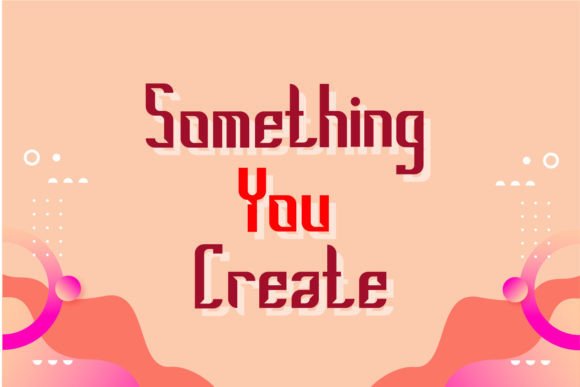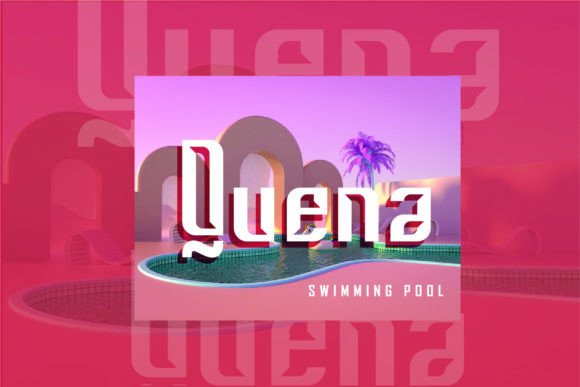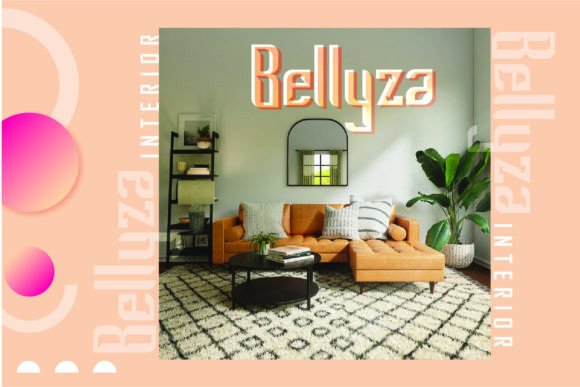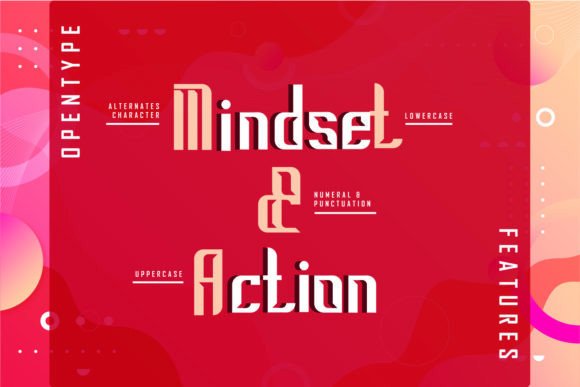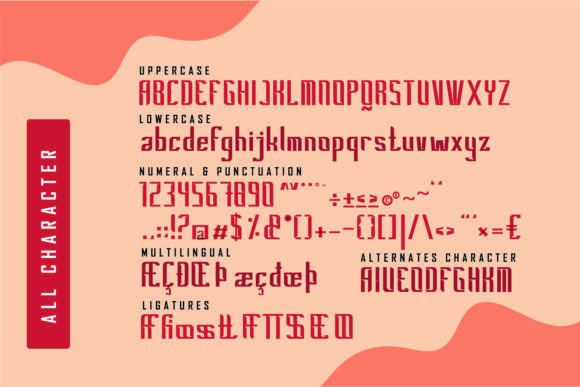
Discover the Elegance of Esmeralda Font: Elevate Your Designs with this Stunning Display Font
Are you a designer or crafter looking for a unique and stylish font to take your creations to the next level? Look no further than Esmeralda Font, an exquisite display font that is sure to impress. With its distinctive and elegant personality, Esmeralda is the perfect choice for anyone seeking to add a touch of sophistication to their designs.
What Makes Esmeralda Font So Special?
Esmeralda Font is a one-of-a-kind display font that boasts a stylish and unique personality. Its original look is sure to appeal to a wide range of crafty ideas, from letterheads and titles to stationery and more. Whether you’re working on a branding project, creating custom stationery, or designing eye-catching titles, Esmeralda Font is the perfect choice.
Key Features of Esmeralda Font
• Unique and Stylish Personality: Esmeralda Font has a distinctive and elegant personality that sets it apart from other fonts.
• Exquisite Display Font: With its beautiful and intricate design, Esmeralda Font is perfect for display purposes, such as titles, headings, and letterheads.
• Versatile: Esmeralda Font can be used for a wide range of design projects, from stationery and branding to titles and more.
• Elegant and Sophisticated: Esmeralda Font adds a touch of elegance and sophistication to any design, making it perfect for high-end branding and luxury projects.
How to Use Esmeralda Font in Your Designs
Esmeralda Font is incredibly versatile and can be used in a variety of design projects. Here are a few ideas to get you started:
• Branding and Logos: Use Esmeralda Font to create stunning logos and branding materials that exude elegance and sophistication.
• Stationery and Invitations: Add a touch of luxury to your stationery and invitations with Esmeralda Font.
• Titles and Headings: Use Esmeralda Font to create eye-catching titles and headings that grab attention.
• Packaging and Labels: Esmeralda Font is perfect for packaging and labels, adding a touch of elegance to any product.
Tips for Getting the Most Out of Esmeralda Font
To get the most out of Esmeralda Font, here are a few tips to keep in mind:
• Use it Sparingly: Esmeralda Font is a display font, so use it sparingly to add emphasis and impact to your designs.
• Pair it with Other Fonts: Experiment with pairing Esmeralda Font with other fonts to create a unique and visually appealing combination.
• Experiment with Colors: Esmeralda Font looks stunning in a variety of colors, so don’t be afraid to experiment and find the perfect hue for your design.
Esmeralda Font is a truly unique and exquisite display font that is sure to elevate your designs to the next level. With its stylish and elegant personality, Esmeralda Font is perfect for a wide range of design projects, from branding and stationery to titles and more. Whether you’re a designer or crafter, Esmeralda Font is a must-have font that will add a touch of sophistication and elegance to any design.